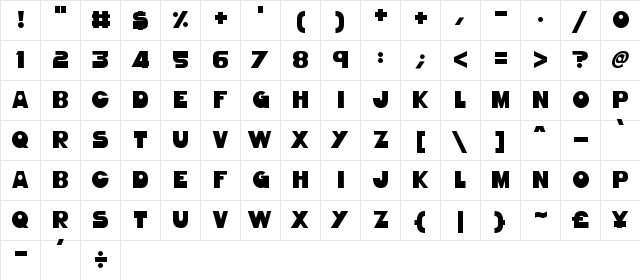
Gorgeous Girls Regular Font Preview
Gorgeous Girls Regular
Gorgeous Girls Regular Font Details
Design Context for Gorgeous Girls Typeface
Gorgeous Girls offers clean, dependable letterforms without strong stylistic allegiance, making it a practical choice for designers who need flexibility.